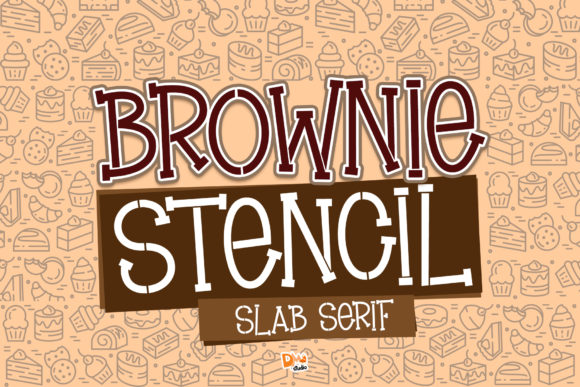
Brownie Stencil Font: The Fun and Quirky Slab Serif Font for Kids and School Projects
Are you looking for a font that can add a touch of fun and quirkiness to your designs, especially for kids or school projects? Look no further than the Brownie Stencil font! This slab serif font is not only visually appealing but also versatile and easy to use. In this article, we’ll explore the features and benefits of the Brownie Stencil font, and how it can elevate your designs to the next level.
What is Brownie Stencil Font?
Brownie Stencil is a fun, quirky, and neat slab serif font that is designed to bring a smile to your face. Its unique and playful design makes it perfect for a wide range of applications, from kids’ projects to school assignments, and even personal designs. The font’s slab serif style gives it a distinctive look that is both modern and retro at the same time.
Key Features of Brownie Stencil Font
- Slab Serif Style: The font features a slab serif style, which gives it a unique and distinctive look.
- Fun and Quirky Design: The font’s design is playful and fun, making it perfect for kids and school projects.
- Neat and Clean: Despite its playful design, the font is neat and clean, making it easy to read and use.
- Versatile: The font is versatile and can be used for a wide range of applications, from digital designs to print materials.
Why Use Brownie Stencil Font?
So, why should you use the Brownie Stencil font for your designs? Here are a few reasons:
Reasons to Use Brownie Stencil Font
- Perfect for Kids and School Projects: The font’s fun and quirky design makes it perfect for kids and school projects, such as posters, presentations, and worksheets.
- Adds a Touch of Personality: The font adds a touch of personality to your designs, making them stand out from the crowd.
- Easy to Read: Despite its playful design, the font is easy to read, making it perfect for digital and print materials.
- Customizable: The font is customizable, allowing you to adjust its size, color, and style to fit your design needs.
How to Use Brownie Stencil Font?
In conclusion, the Brownie Stencil font is a fun, quirky, and neat slab serif font that is perfect for kids and school projects. Its unique design and versatility make it a great addition to any design project. With its ease of use and customization options, you can confidently add the Brownie Stencil font to your designs and love the results!